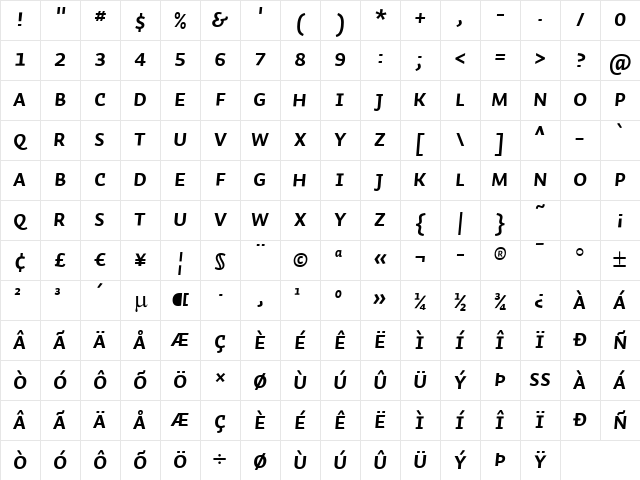
Auto 2 Bold Italic SmCp Free Font
Auto 2 Bold Italic SmCp
Style: Bold Italic SmCp
Design Context for Auto 2
Auto 2 is a composed and adaptable typeface that performs quietly and consistently across a wide range of design contexts. The slanted form adds forward momentum and visual energy. Its bold stroke weight gives it real presence on the page.